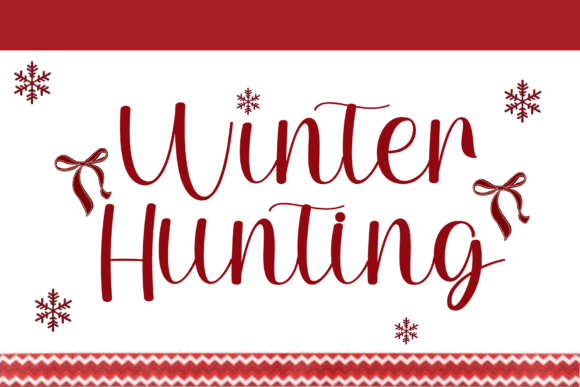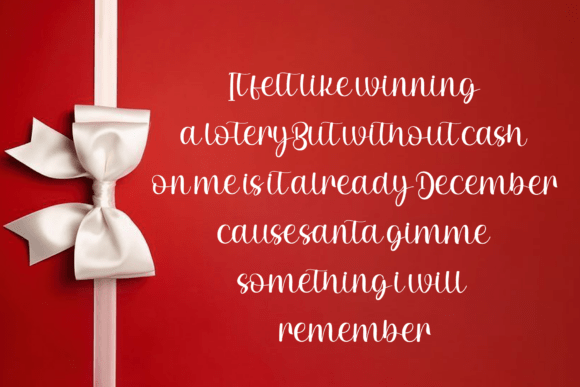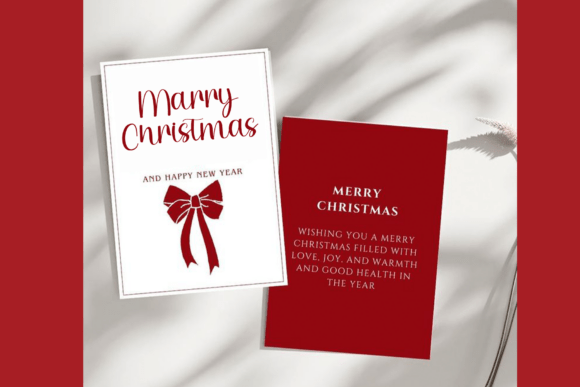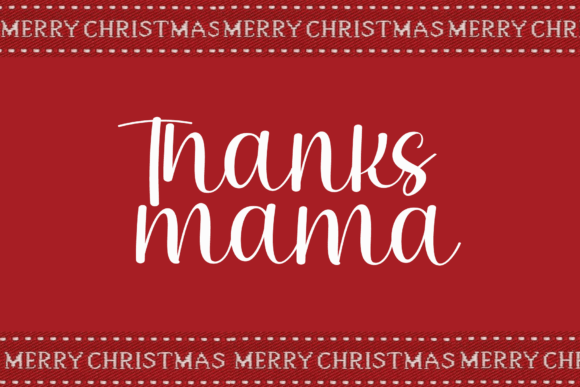
Introducing December Christmas Font: A Bold and Expressive Handwritten Typeface
Are you looking for a font that can add a touch of personality and warmth to your designs? Look no further than the December Christmas Font, a bold and expressive handwritten typeface that’s perfect for family-themed designs, personalized gifts, custom greeting cards, and more.
A Unique Flared Style
December Christmas Font features a unique flared style with thick vertical strokes and sweeping horizontals, giving it a confident and heartfelt appearance. This dramatic, almost signature-like presence makes it perfect for designs that require a charismatic, genuine, and impactful handwritten touch.
Perfect for Family-Themed Designs
Whether you’re creating custom greeting cards, family tree designs, or personalized gifts, December Christmas Font is the perfect choice. Its bold and expressive style is sure to make your designs stand out and convey a sense of warmth and personality.
Use it for Custom Greeting Cards
December Christmas Font is perfect for creating custom greeting cards for special occasions like Christmas, birthdays, and anniversaries. Its unique flared style and bold strokes make it easy to read and add a personal touch to your cards.
Add a Personal Touch to Your Designs
With December Christmas Font, you can add a personal touch to your designs and make them more meaningful. Its handwritten style gives your designs a sense of authenticity and uniqueness, making them perfect for personalized gifts, custom stationery, and more.
Strong Titles and Headlines
December Christmas Font is not just limited to body text; it’s also perfect for strong titles and headlines. Its bold and expressive style makes it easy to grab attention and add emphasis to your designs.
Key Features of December Christmas Font
- Bold and Expressive: December Christmas Font features a bold and expressive handwritten style that’s perfect for making a statement.
- Unique Flared Style: Its unique flared style with thick vertical strokes and sweeping horizontals gives it a confident and heartfelt appearance.
- Handwritten Touch: December Christmas Font has a genuine handwritten touch that’s perfect for adding personality to your designs.
- Perfect for Family-Themed Designs: It’s perfect for family-themed designs, personalized gifts, custom greeting cards, and more.
Tips for Using December Christmas Font
- Pair it with Other Fonts: Pair December Christmas Font with other fonts to create a unique and interesting contrast.
- Experiment with Colors: Experiment with different colors to find the perfect combination that matches your design.
- Use it for Titles and Headlines: Use December Christmas Font for strong titles and headlines to add emphasis and grab attention.
December Christmas Font is a bold and expressive handwritten typeface that’s perfect for designers and crafters looking to add a personal touch to their designs. Its unique flared style, bold strokes, and genuine handwritten touch make it perfect for family-themed designs, personalized gifts, custom greeting cards, and more. Try it out today and add a touch of warmth and personality to your designs!